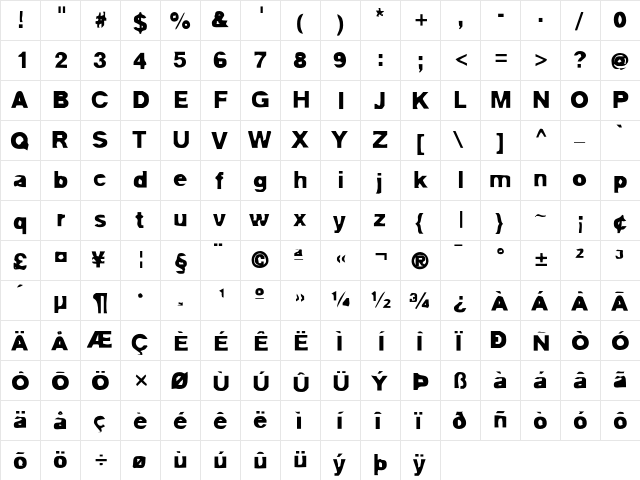
Autotrace Five
Design Context for Autotrace Typeface
Autotrace takes a measured approach to typography — its balanced proportions and neutral character make it a reliable workhorse for both digital and print work.
Pro Tip: Use Autotrace in both headline and body roles to test its range before committing to a single application.